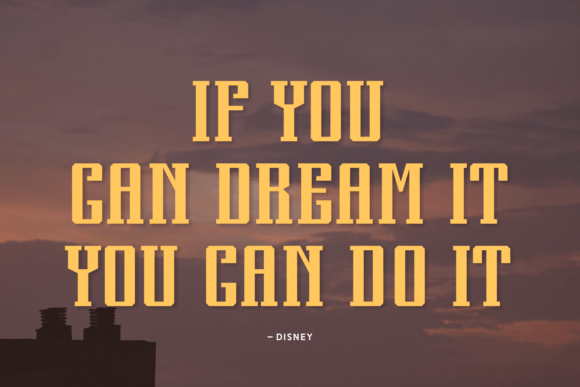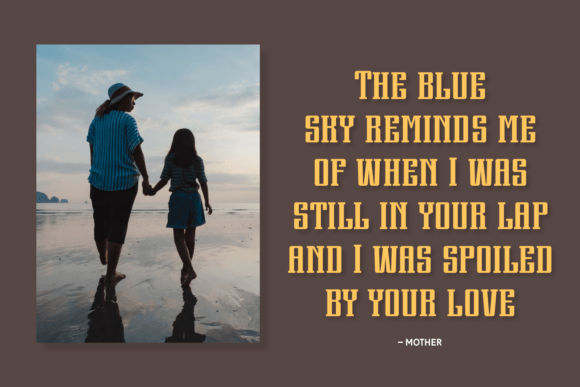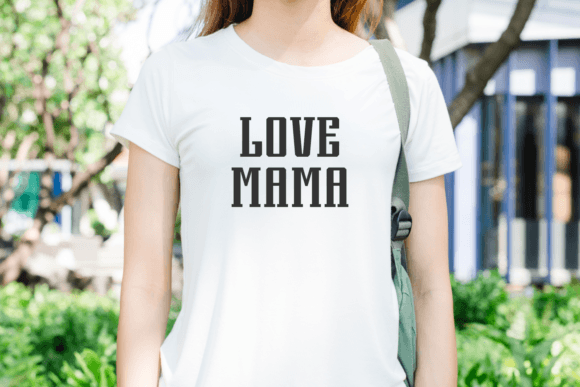
Introducing Field Font: The Epitome of Elegance and Readability
In the realm of typography, a font can make or break the visual appeal of a design project. For those seeking a perfect blend of sophistication and legibility, Field Font emerges as an exceptional choice. This modern serif font is meticulously crafted to offer an elegant and readable experience, making it an ideal selection for a wide array of design applications.
The Essence of Field Font
Field Font stands out with its clean lines and stylish curves, providing a classic feel with a contemporary twist. This unique combination allows it to cater to diverse design needs, from luxury branding and editorials to websites and digital interfaces. The font’s versatility is one of its most compelling features, enabling designers to use it for both headlines and body text without compromising on style or readability.
Elegance Meets Readability
Elegance and readability are the cornerstone of Field Font’s design. Its serif structure adds a touch of sophistication, reminiscent of traditional typography, while its clean and clear lines ensure that the text remains highly readable, even at smaller sizes. This balance makes Field Font an excellent choice for designers who aim to create a professional and refined look for their projects.
One of the key advantages of Field Font is its versatility. It can be seamlessly integrated into various design projects, including:
- Branding: Create a lasting impression with Field Font’s luxurious and elegant feel, perfect for high-end brands looking to establish a sophisticated identity.
- Editorials: Enhance the readability and aesthetic appeal of articles, magazines, and newspapers with Field Font’s classic yet modern charm.
- Web Design: Improve user experience with a font that is easy to read on both desktop and mobile devices, making it ideal for websites and digital platforms.
- Digital Interfaces: Use Field Font in UI/UX design to create intuitive and visually appealing interfaces that communicate effectively.
Why Choose Field Font?
Field Font offers several benefits that make it a preferred choice among designers:
- Unique Aesthetic: Offers a distinctive look that sets it apart from more traditional serif fonts, providing a fresh yet familiar feel.
- High Readability: Ensures that your message is communicated clearly, regardless of the context or medium.
- Flexibility: Suitable for a wide range of design projects, from print to digital, offering flexibility in your typography choices.
- Professionalism: Adds a touch of elegance and sophistication to any text, enhancing the overall professionalism of your design.
Field Font is a remarkable addition to the world of typography, offering a perfect blend of elegance, readability, and versatility. Whether you’re a designer looking to elevate your project’s typography or a craftsperson seeking the perfect font for your creative endeavors, Field Font is an excellent choice. Its ability to convey sophistication and professionalism makes it an invaluable tool in creating visually appealing and effective designs. Embrace Field Font in your next project and experience the difference it can make in achieving your design goals.
With Field Font, you don’t just choose a typeface; you adopt a design philosophy that prioritizes clarity, elegance, and impact. Make your designs stand out with a font that is not only beautiful but also functional, enhancing your project’s aesthetic and communicative potential.